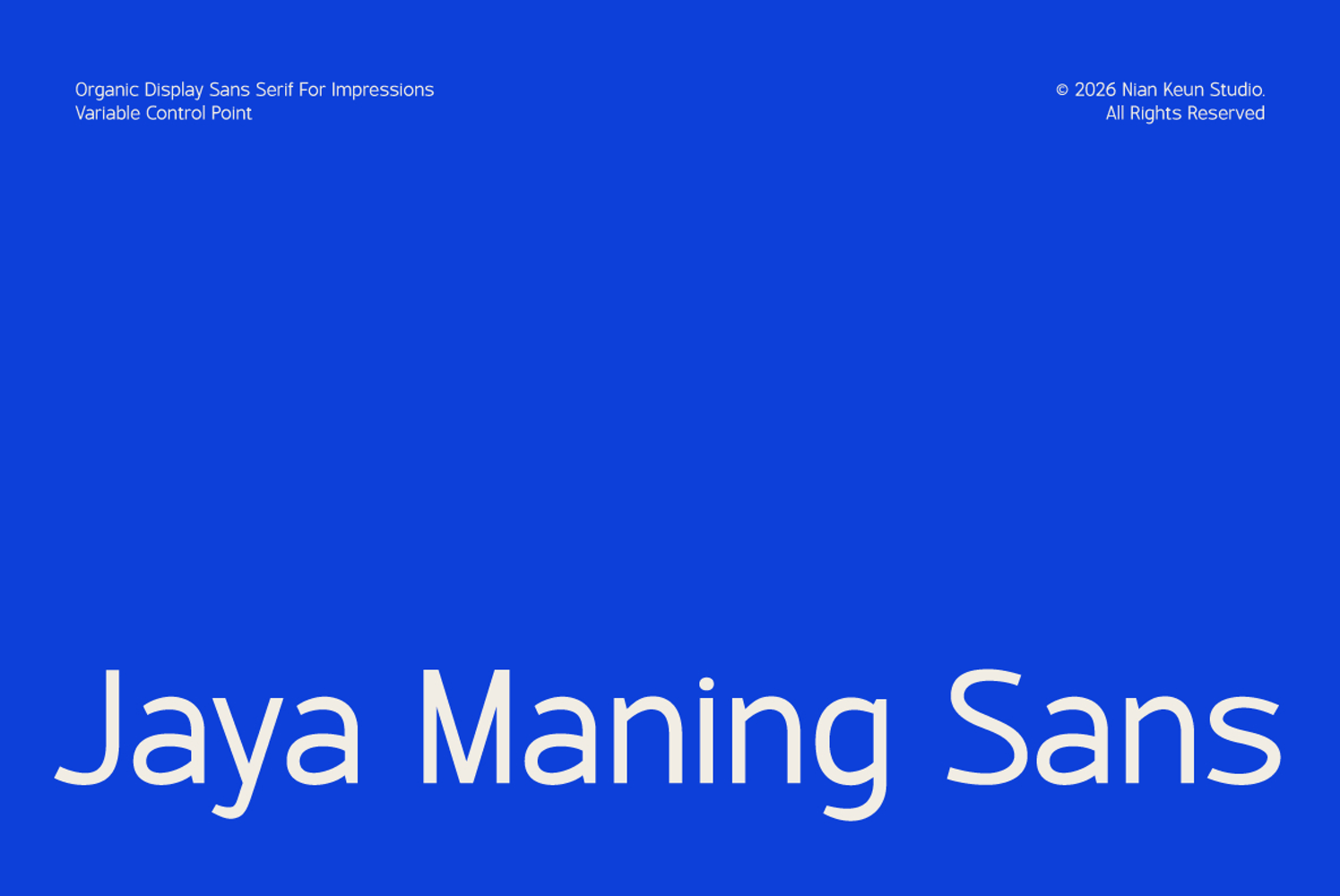
Jaya Maning Sans
Jaya Maning Sans is an organic modern sans serif display font designed to deliver a clean, bold, and expressive visual impression. Its smooth yet confident letterforms make it ideal for branding, headlines, posters, logos, editorial layouts, UI/UX design, and digital content.
Balancing contemporary aesthetics with a human touch, Jaya Maning Sans offers versatility for both creative and professional projects. It performs exceptionally well at medium to large sizes, ensuring clarity and strong visual impact.
• Branding & logo design
• Posters & headlines
• Websites & UI design
• Editorial & magazines
• Social media content
• Digital ads & presentations